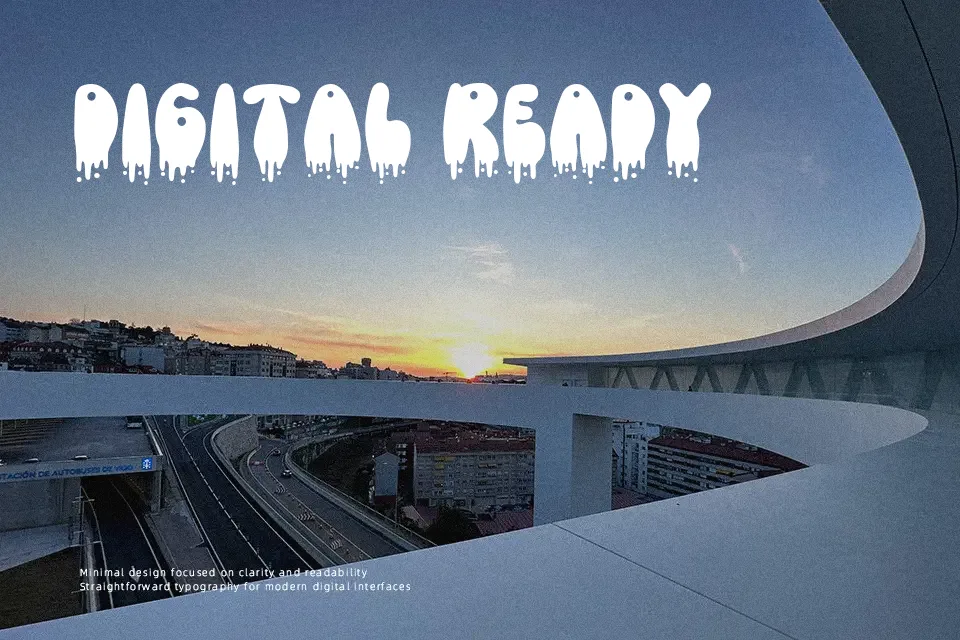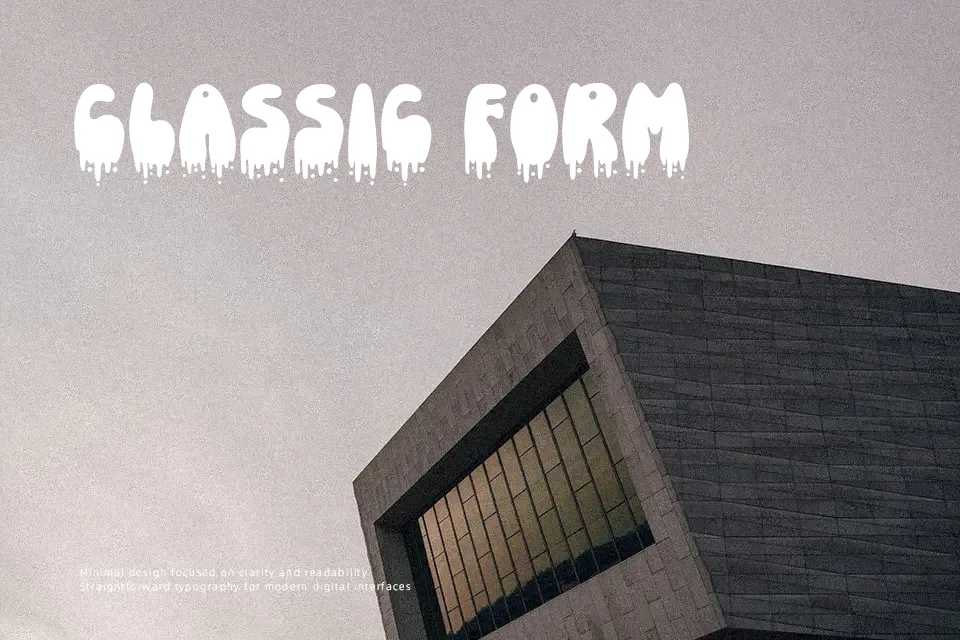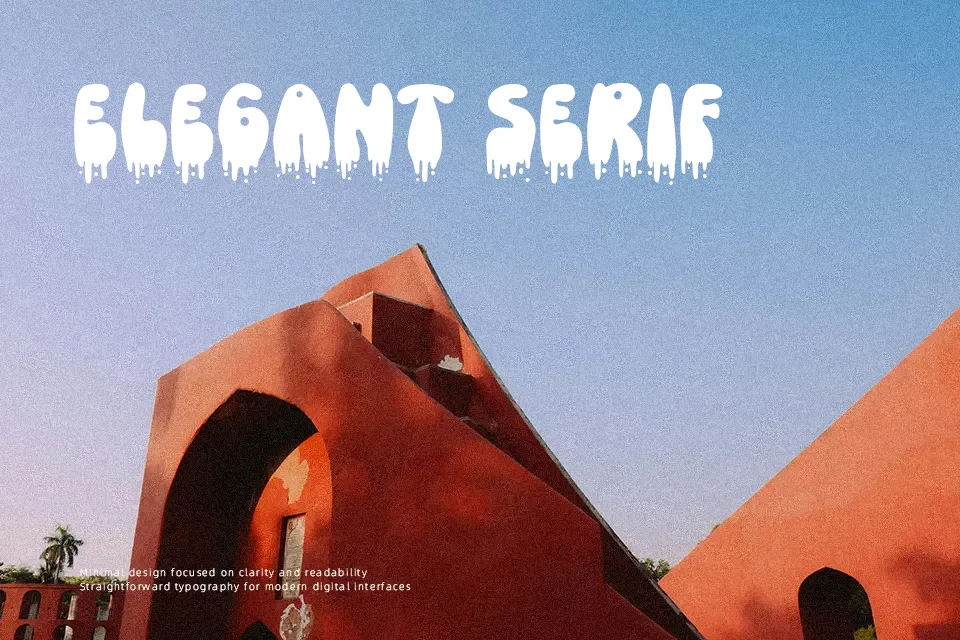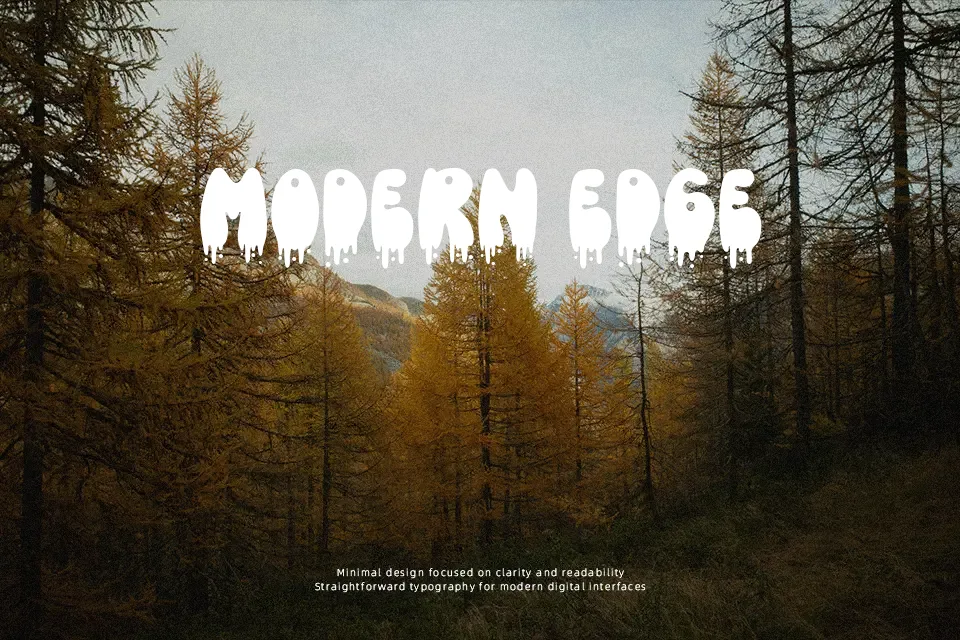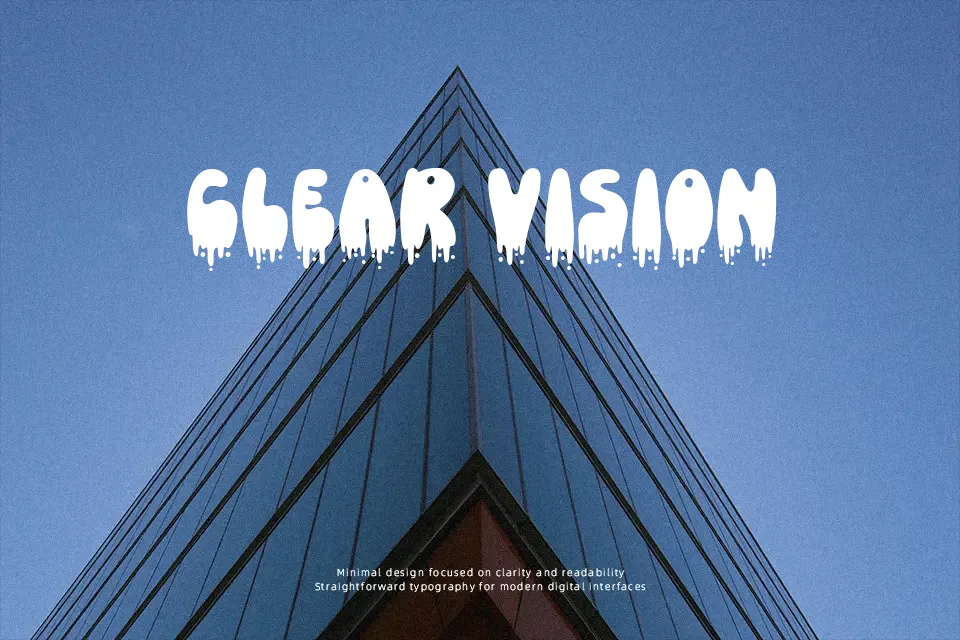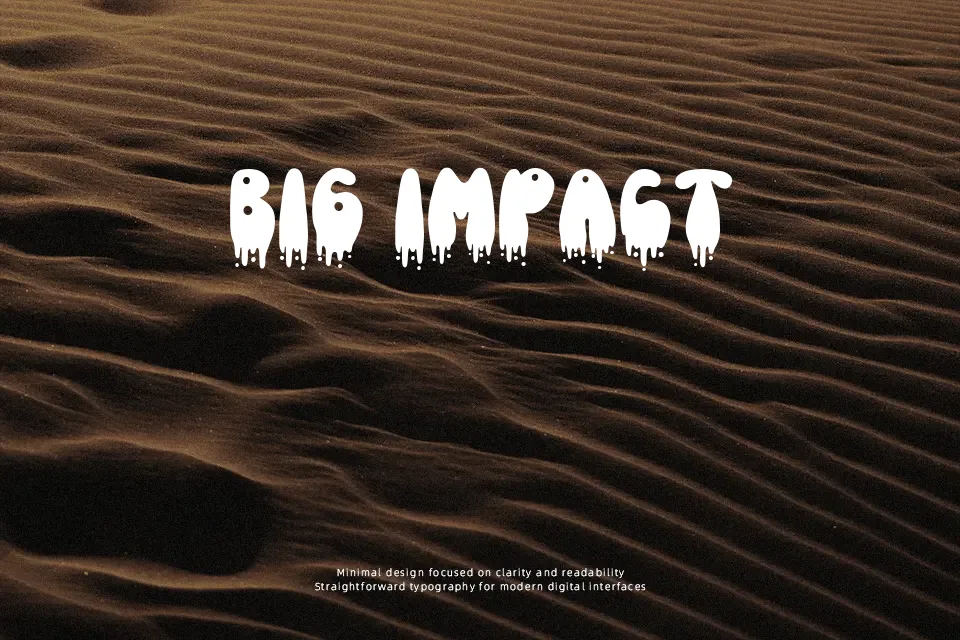
Peachy Bubbly Font
Peachy Bubbly Font uses inflated uppercase forms, heavy smooth strokes, and irregular melting terminals to create a soft cartoon appearance. The wide, rounded proportions and open internal spaces keep individual letters recognizable in large display settings, while the decorative drips give headlines a lively rhythm. It works well for short packaging titles, children’s graphics, and bold social posts. The spacing helps preserve clarity when the type is set large. At smaller sizes, however, its melting details and dense weight can make compact captions less distinct, so it is better reserved for brief text.